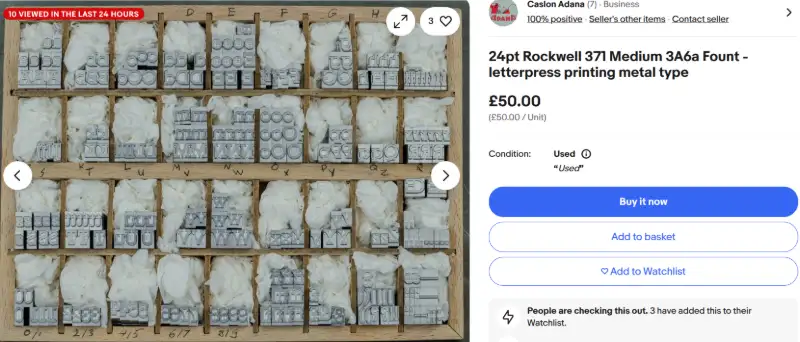
24pt Rockwell 371 Medium 3A6a Fount - letterpress printing metal type*
Rockwell font is a Slab-Serif typeface font. Monotype Corporation designed and released this font in 1934. Frank Hinman Pierpont was the supervisor of this font project. He was Monotype's engineering manager. Rockwell is based on an earlier condensed slab-serif design called Litho Antique. It was named after the Rockwell International Corporation, an American manufacturing company that was one of the first customers of the font. The font was originally intended for advertising and printing but soon became popular for other applications
This is an 24pt 3A6a used fount in an Adana wooden typecase